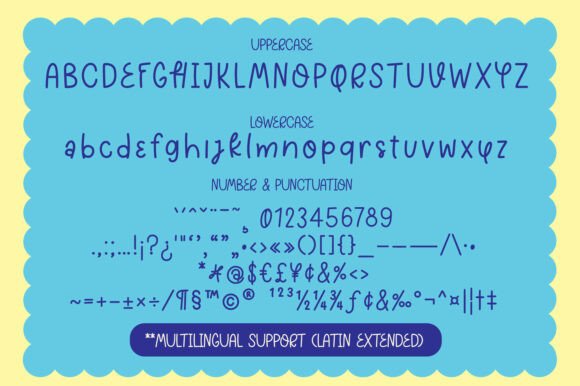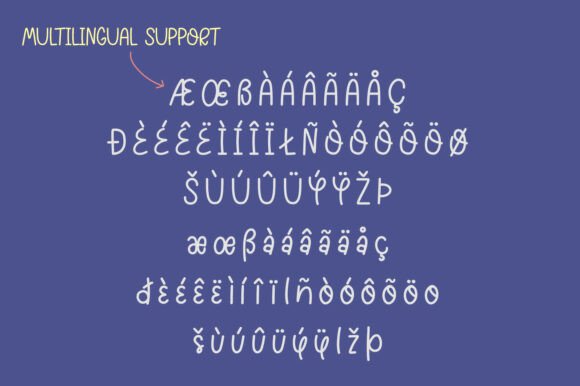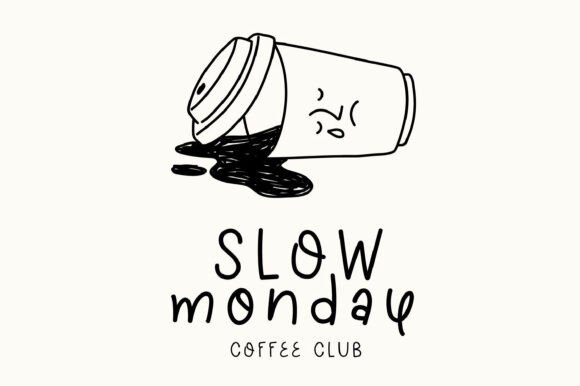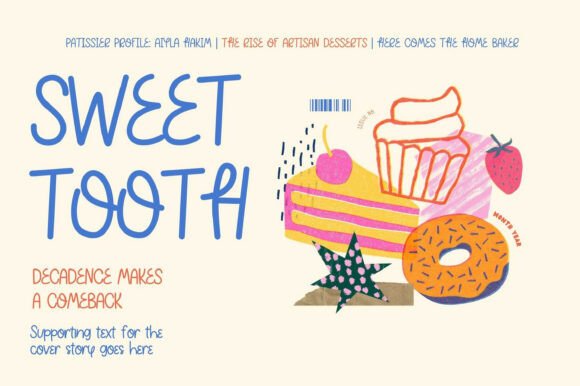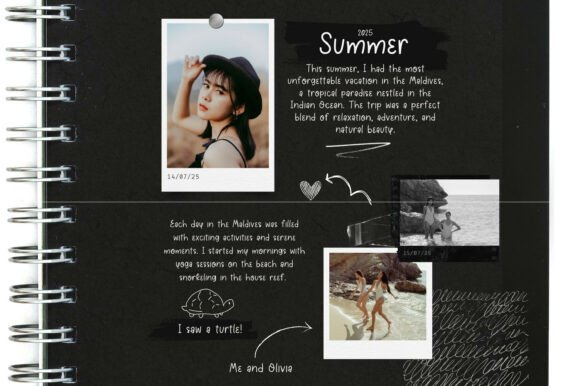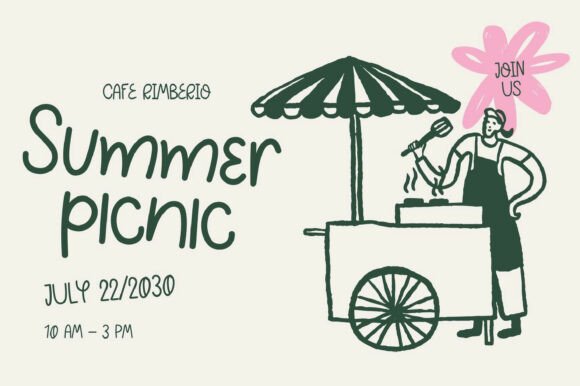
Introducing Curly Fusilli Font: Add a Playful Touch to Your Designs
Are you looking for a font that can bring a fun, bright, and friendly vibe to your designs? Look no further than Curly Fusilli, a bold handwritten marker-style font that’s perfect for a wide range of creative projects. With its smooth curves and playful personality, this font is sure to capture the attention of your audience and leave a lasting impression.
What is Curly Fusilli Font?
Curly Fusilli is a unique and eye-catching font that’s designed to mimic natural marker handwriting. Its thick, rounded strokes and smooth curves give it a casual and approachable feel that’s perfect for kids-themed projects, branding, social media graphics, posters, and more. Whether you’re a designer, crafter, or DIY enthusiast, this font is sure to add a cheerful and lively feel to your creative work.
Perfect for Playful Designs
Curly Fusilli is particularly well-suited for kids-themed projects, such as children’s books, educational materials, and kids’ party invitations. Its playful and friendly personality is also perfect for branding and social media graphics, where you want to make a fun and engaging impression on your audience. Additionally, this font is great for:
- Kids & playful designs
- Logos & branding
- Posters & packaging
- Social media content
- DIY & craft projects
Why Choose Curly Fusilli?
So why choose Curly Fusilli over other fonts? Here are just a few reasons:
- Unique and eye-catching: Curly Fusilli is a one-of-a-kind font that’s sure to stand out in a crowd.
- Playful and friendly: This font has a fun and approachable personality that’s perfect for kids-themed projects and playful designs.
- Easy to read: Despite its playful nature, Curly Fusilli is still easy to read and understand, making it perfect for body text and headings.
- Versatile: This font can be used for a wide range of creative projects, from branding and social media graphics to posters and DIY crafts.
Tips for Using Curly Fusilli
Here are a few tips for getting the most out of Curly Fusilli:
- Use it for headings and titles: Curly Fusilli is perfect for headings and titles, where you want to make a bold and eye-catching statement.
- Pair it with a simple font: For body text, pair Curly Fusilli with a simple and easy-to-read font to create a balanced and harmonious design.
- Experiment with colors: Curly Fusilli looks great in bright and bold colors, so don’t be afraid to experiment and find the perfect hue for your design.
If you’re looking for a font that can add a playful and friendly touch to your designs, look no further than Curly Fusilli. With its smooth curves, thick strokes, and playful personality, this font is perfect for kids-themed projects, branding, social media graphics, posters, and more. So why wait? Download Curly Fusilli today and start adding a cheerful and lively feel to your creative work! ✨